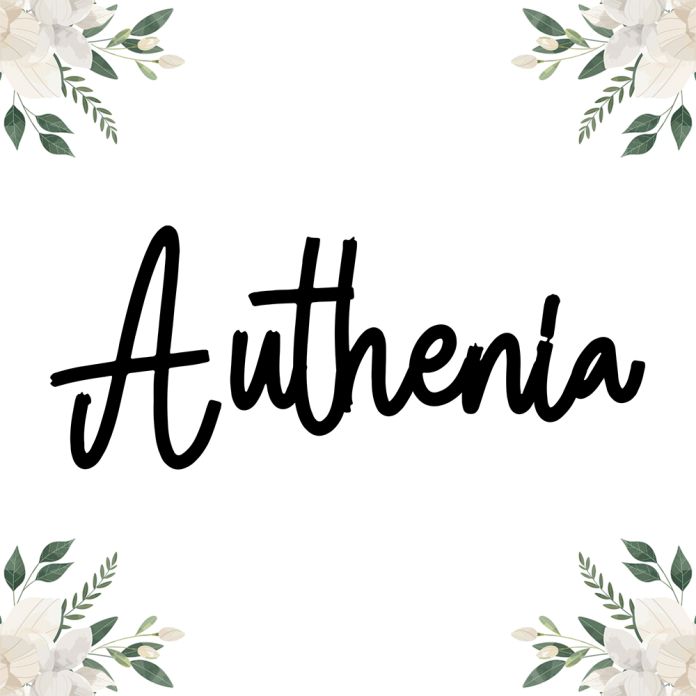
Authenia Fonts
Authenia Script is a handmade calligraphic-style font that features stunning decorative characters. It is fresh & modern, and has a dancing baseline.